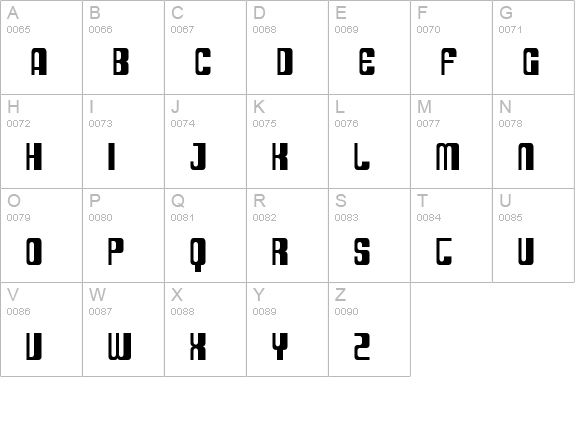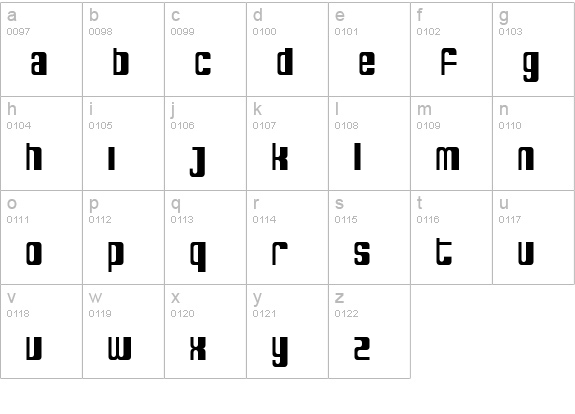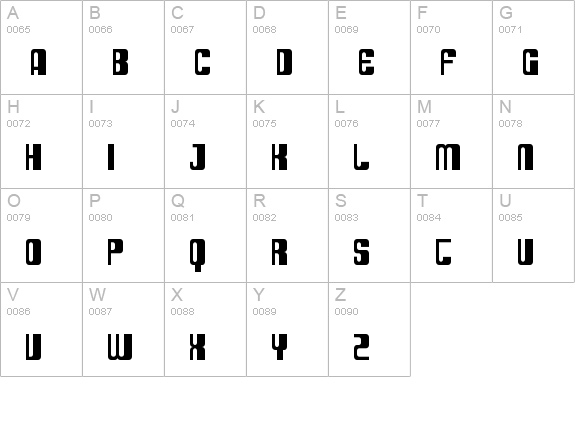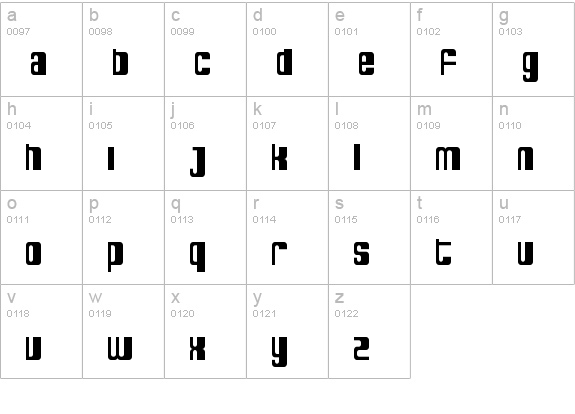
SF DecoTechno Condensed is a distinctive, condensed-width variant in the SF typeface family \xE2\x80\x94 well suited to design and typography projects.
SF DecoTechno Condensed is a stunning and stylish font that seamlessly fuses the elegance of Art Deco with the modernity of Techno. Its condensed design exudes a sense of sophistication and futuristic appeal, making it the perfect choice for projects that require a sleek and cutting-edge aesthetic. This font features clean lines, sharp angles, and geometric shapes, giving it a distinct and eye-catching look. The condensed letterforms allow for maximum impact and readability, making it ideal for headlines, titles, and branding materials. SF DecoTechno Condensed is not only visually striking, but it also offers versatility in its usage. Whether you're designing a high-end fashion magazine, a futuristic technology website, or a sleek corporate identity, this font will elevate your project to new heights. The best part is that SF DecoTechno Condensed is available for free download at FontsMarket.com. You can easily access this font and start incorporating its unique style into your designs. Its availability for free ensures that you can experiment and explore its potential without any financial constraints. So, if you're looking for a font that effortlessly combines the elegance of Art Deco with the modernity of Techno, SF DecoTechno Condensed is the perfect choice. Download it today from FontsMarket.com and let your creativity soar.